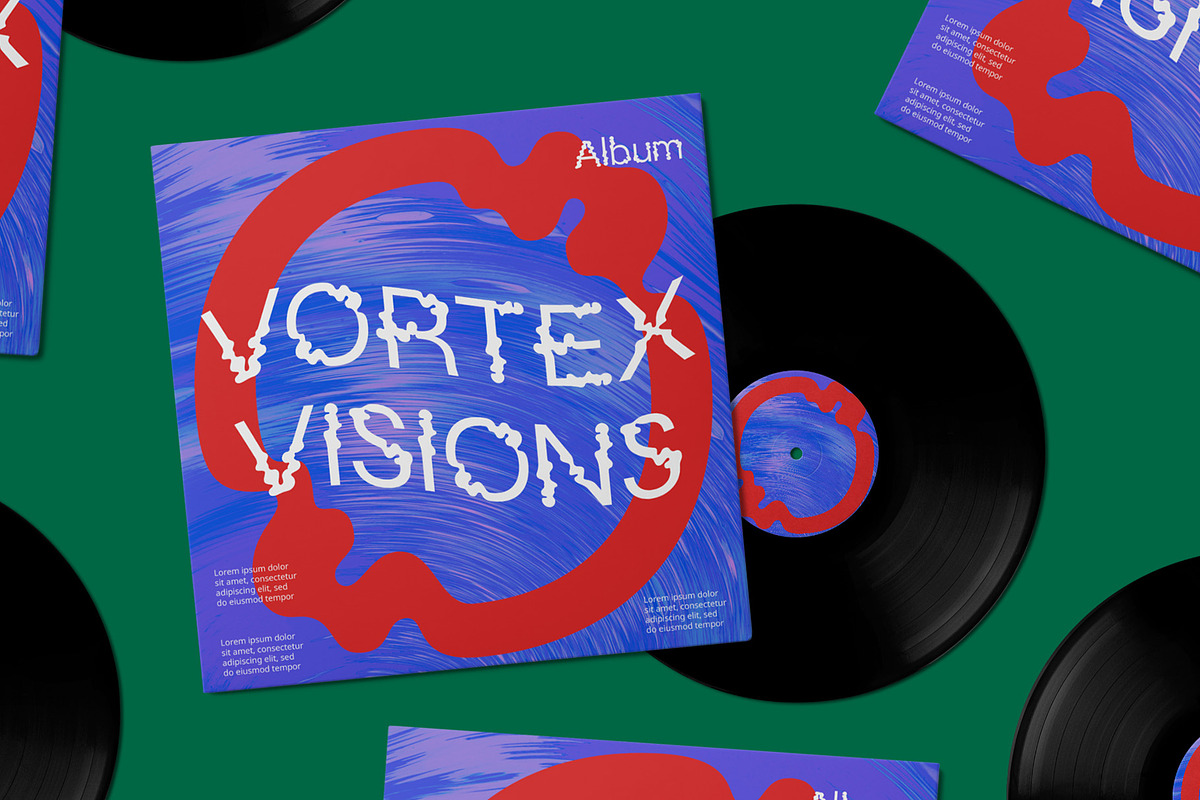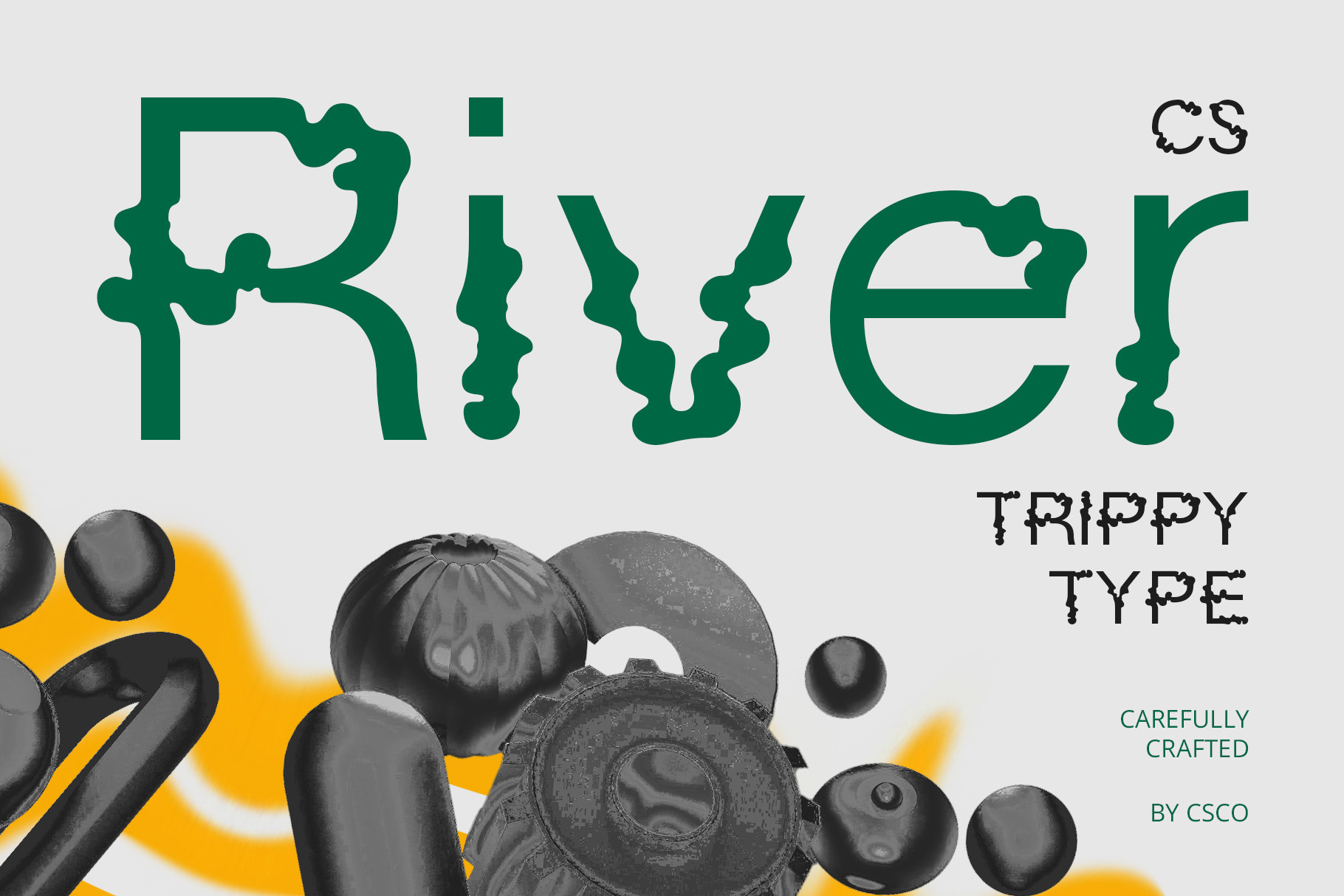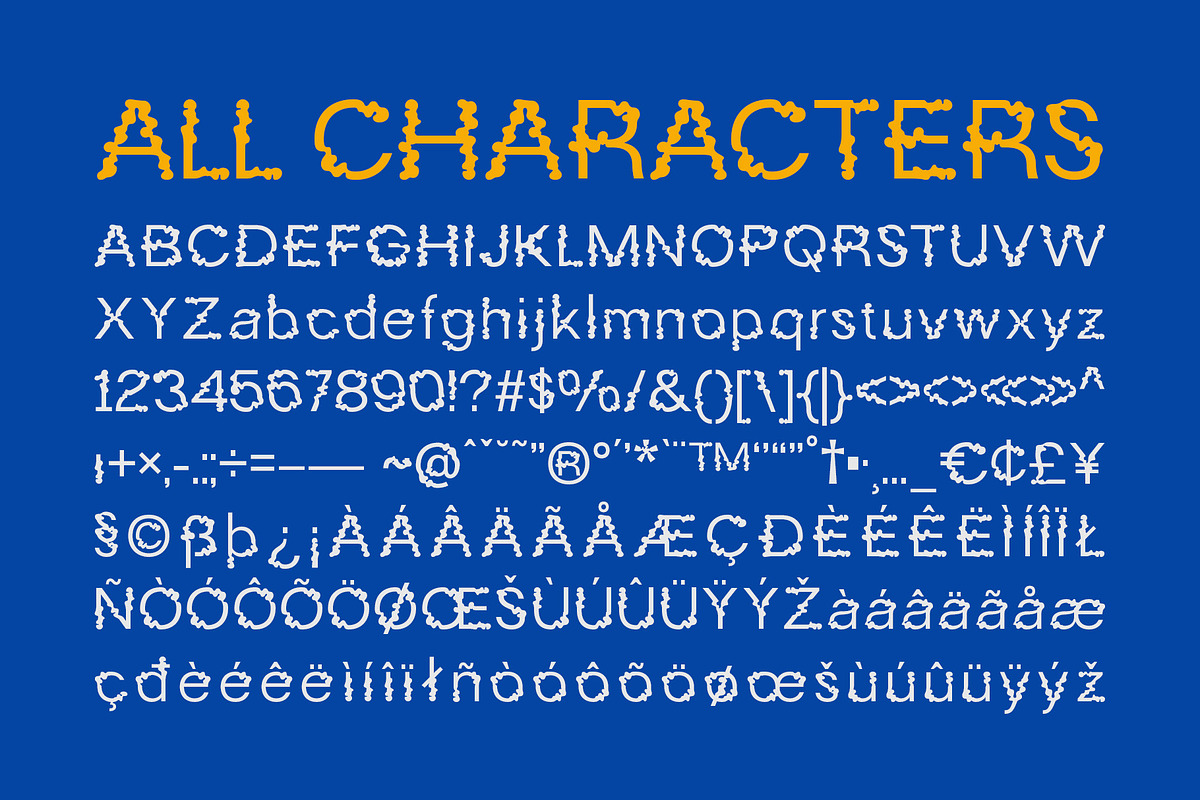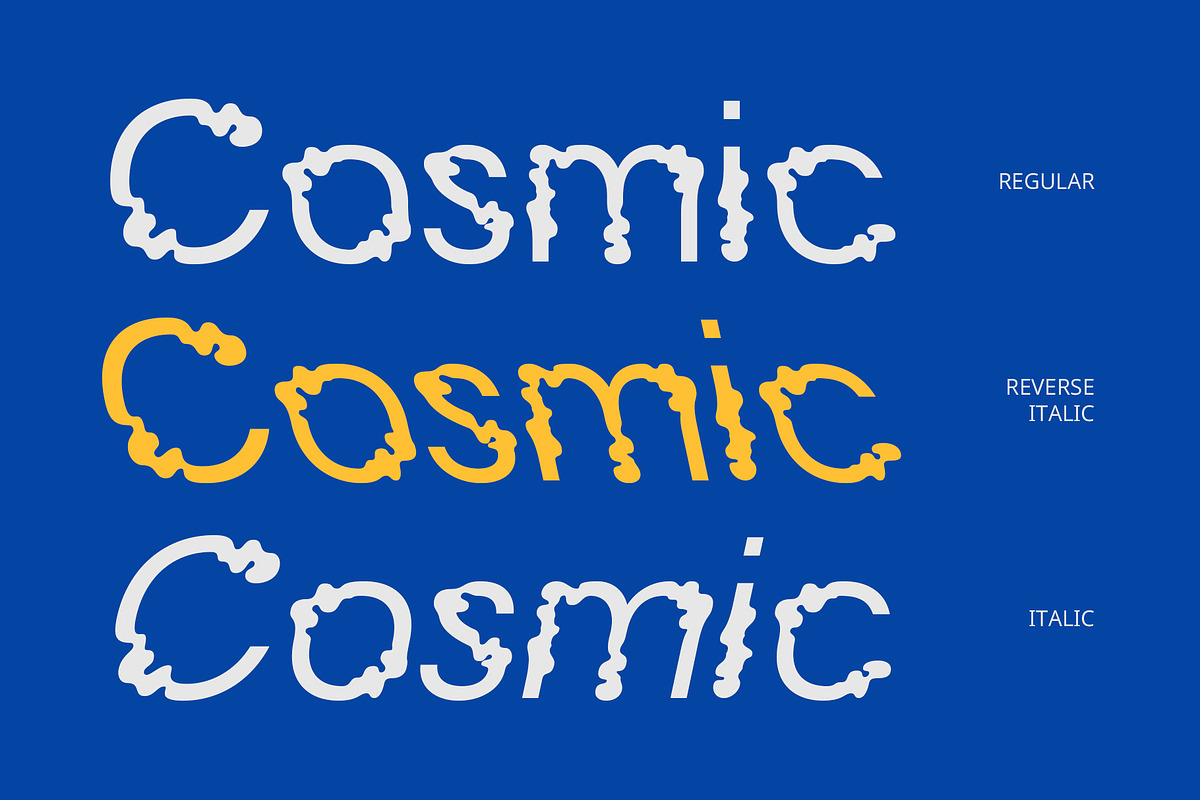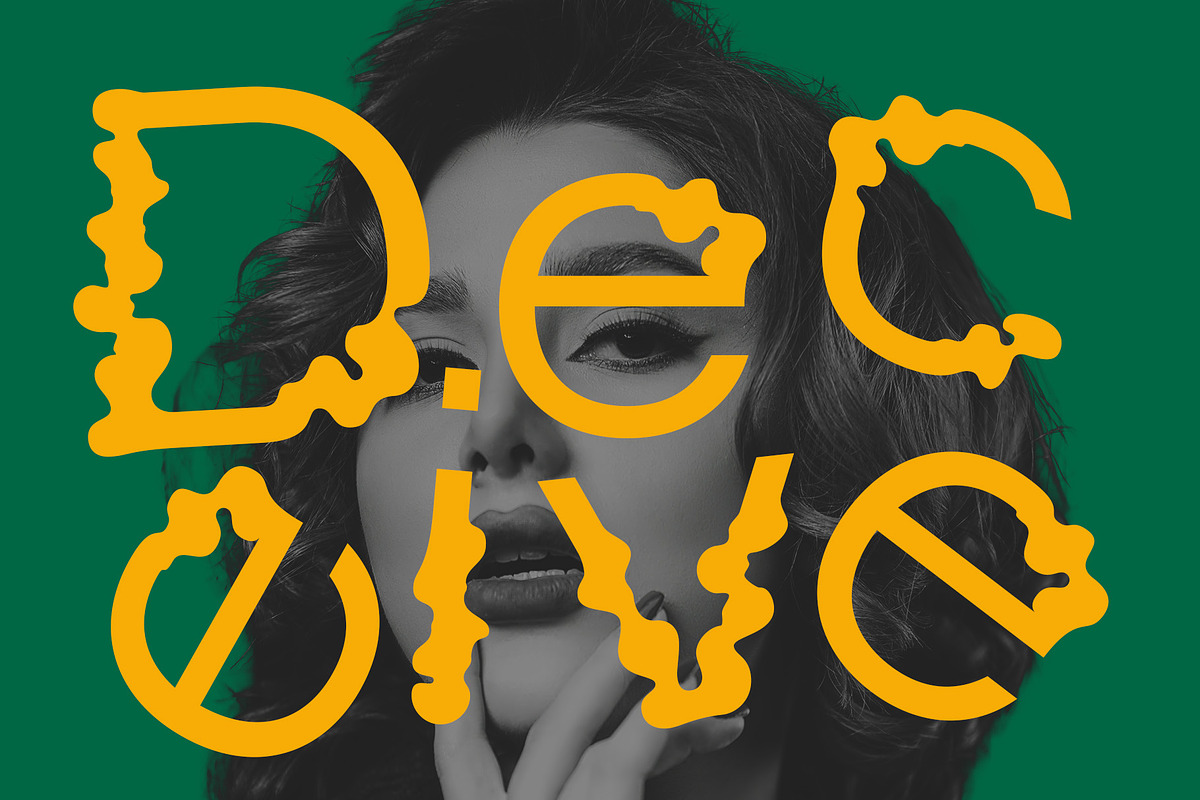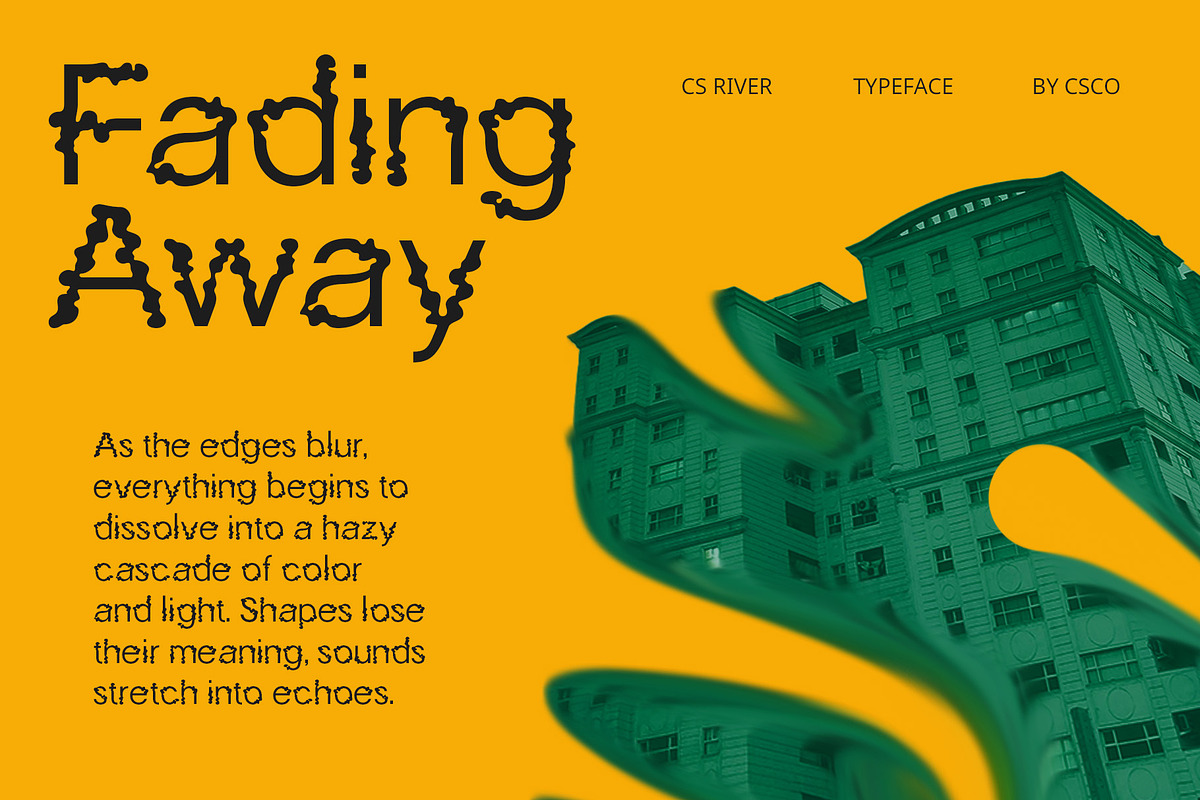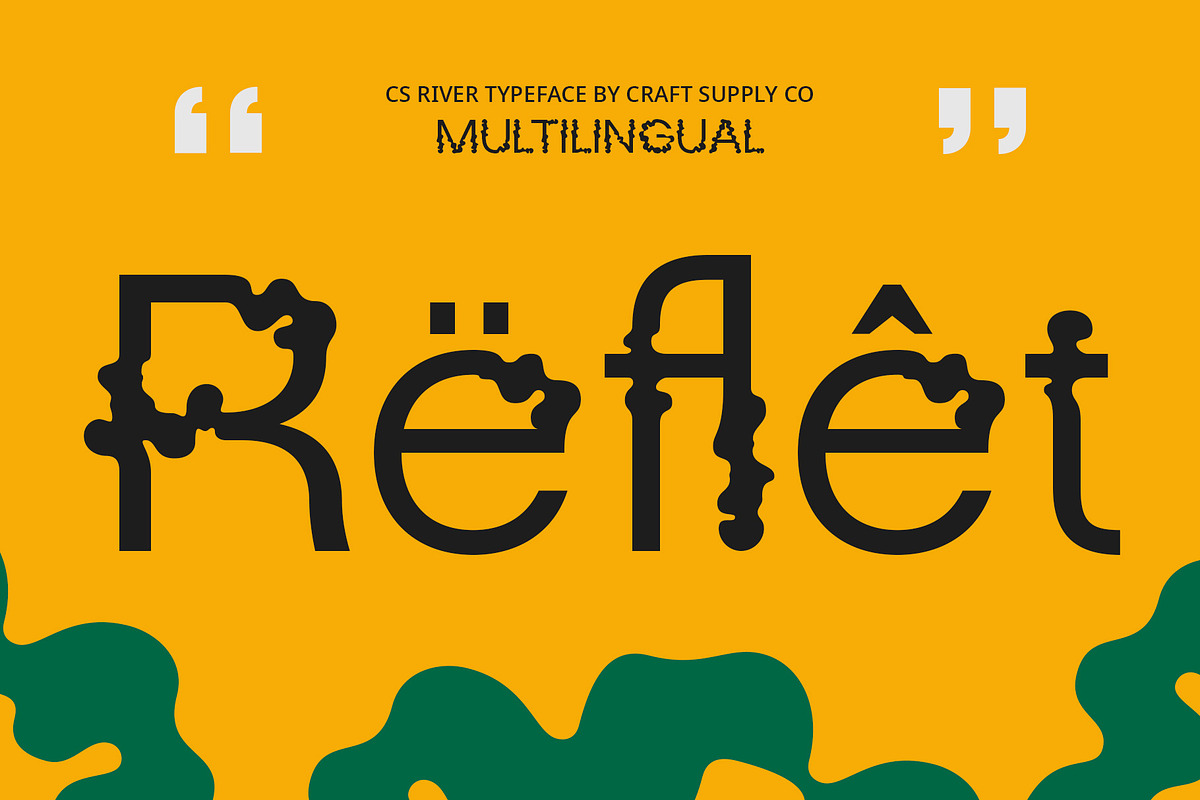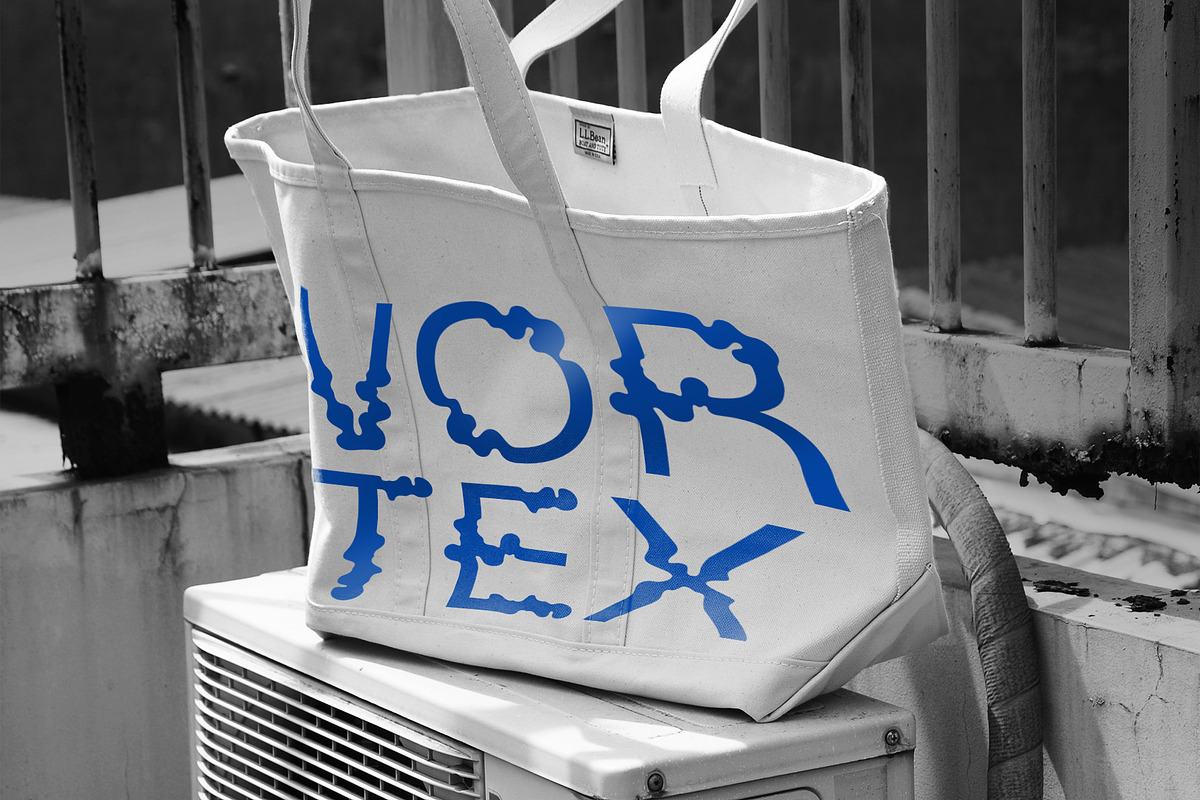
CS River – Trippy Font
Psychedelic, Playful, and Bold CS River is a display font that captures the essence of the psychedelic era, featuring fluid, distorted letterforms and surreal shapes that seem to move and shift before the eyes. With its trippy design, this font evokes a sense of wonder, exploration, and artistic expression. Its unique aesthetic, often paired with vibrant colors and optical illusions, offers a funky, free-spirited vibe, making it the perfect choice for projects that want to stand out and engage the audience with a bold visual experience.
Ideal for Creative and Experimental Designs Whether you’re designing music posters, album covers, or experimental graphics, CS River brings an energetic, avant-garde flair to any project. The fluidity and distortion in the letterforms add a layer of dynamic energy, while the vibrant, often psychedelic color schemes enhance its engaging and playful qualities. This font is ideal for designs that aim to evoke creativity and imagination, appealing to audiences with an appreciation for unique, unconventional aesthetics.
Captivating, Unique, and Bold Expression CS River’s trippy nature makes it a font that’s impossible to ignore. Its psychedelic swirls and visually arresting shapes create an atmosphere that’s both mesmerizing and captivating, perfect for designs that seek to push boundaries. The fluid distortion of the letters invites the viewer to explore and engage with the design, offering a truly immersive and unique experience.
- CS River Regular
- CS River Italic
- CS River Reverse Italic